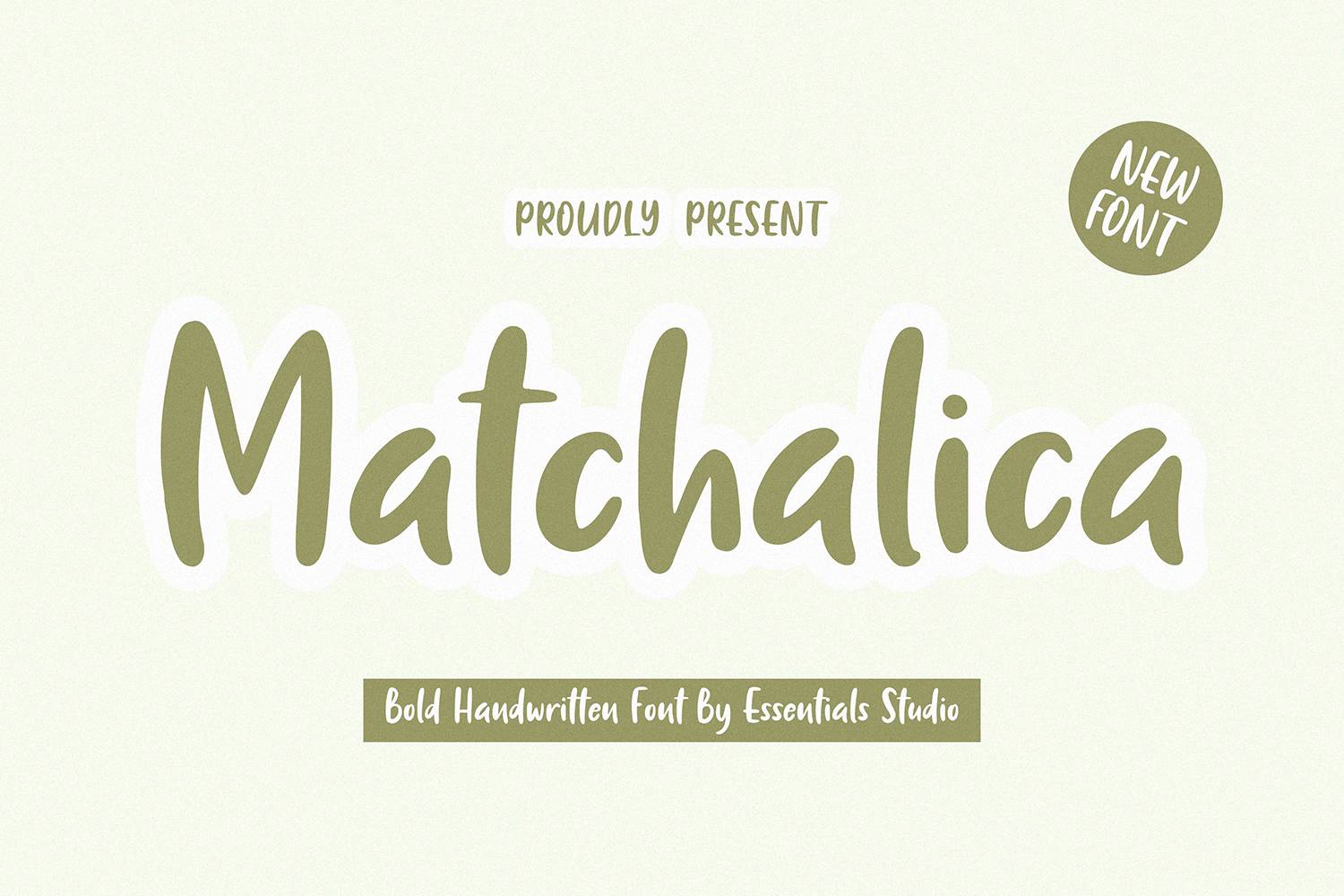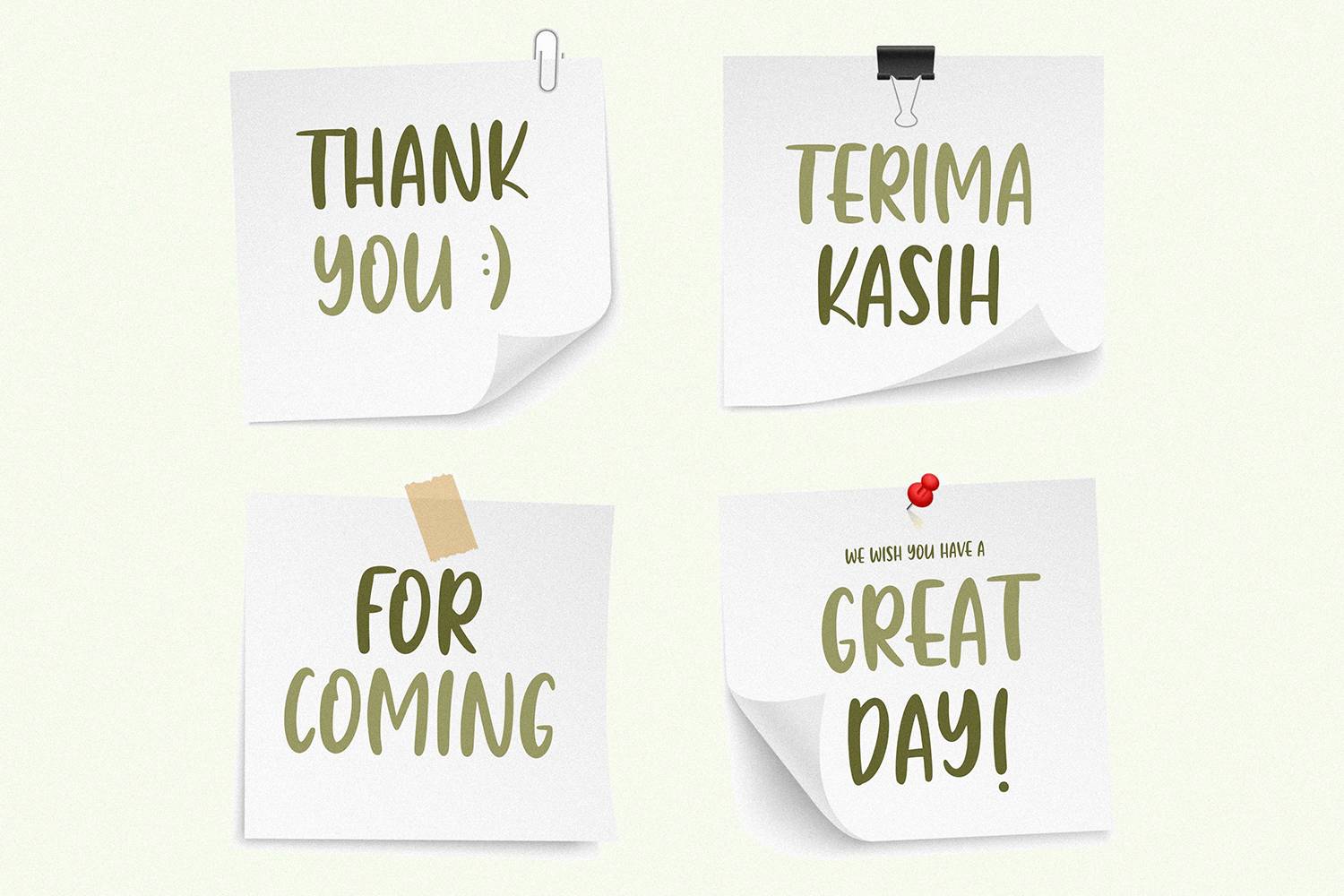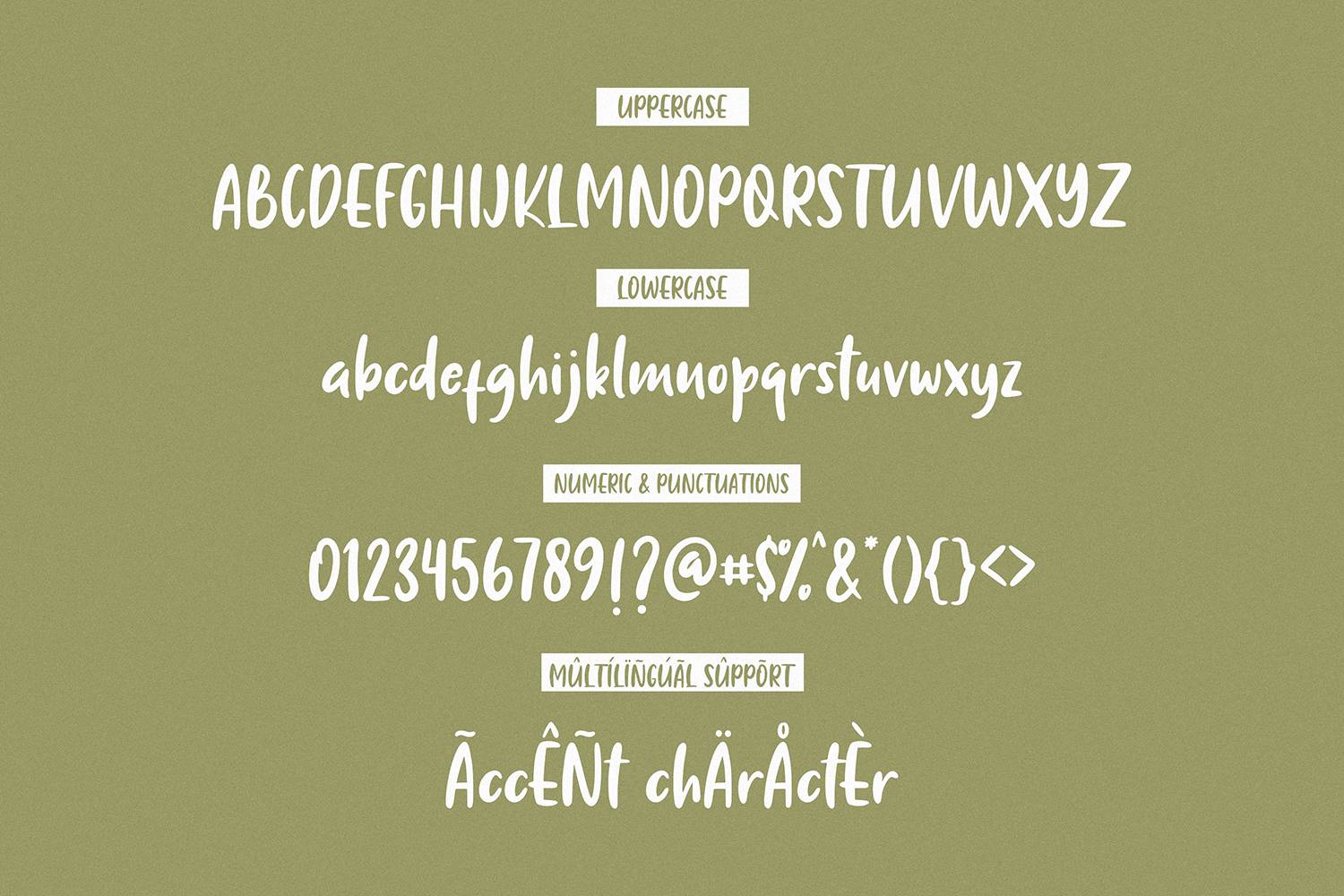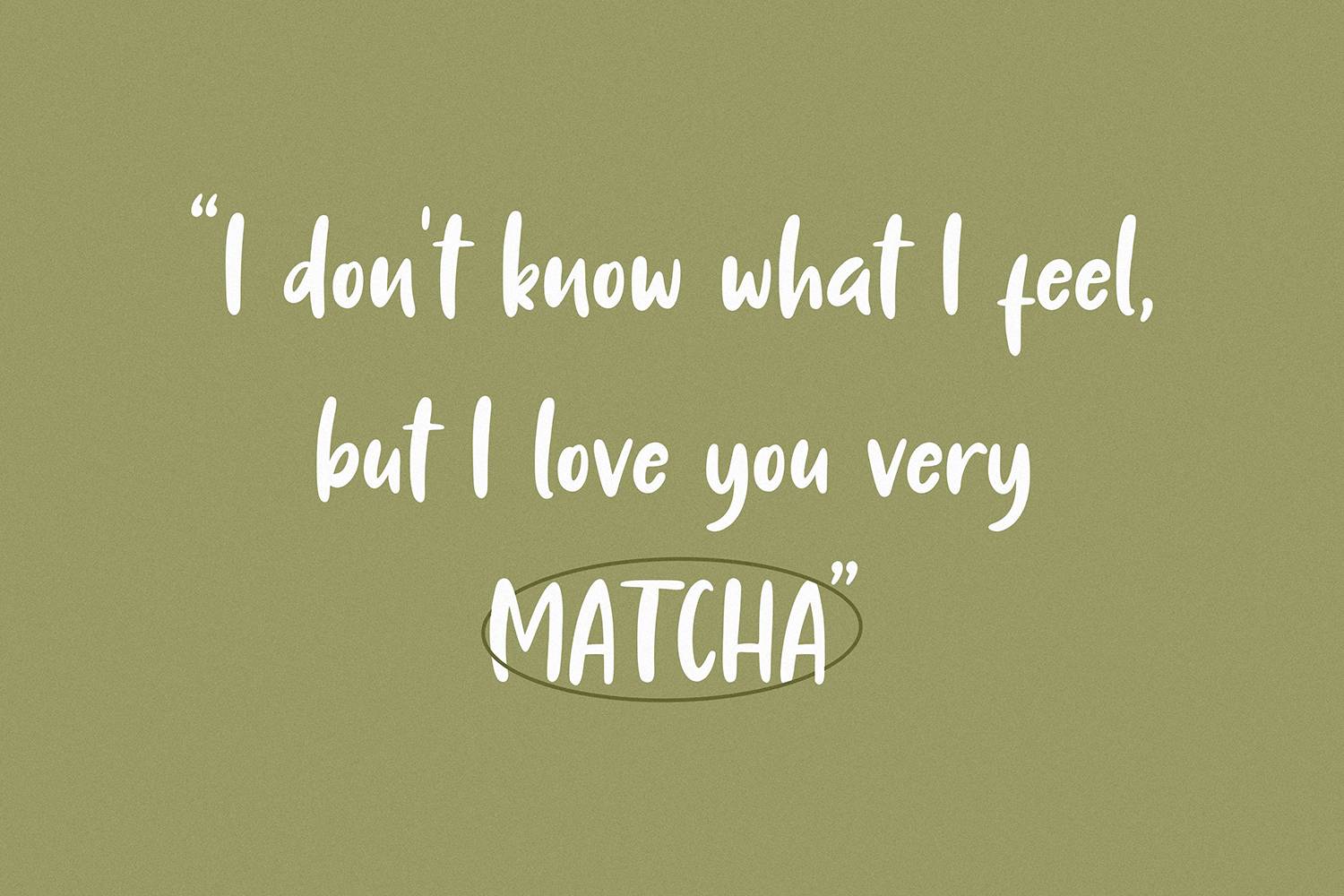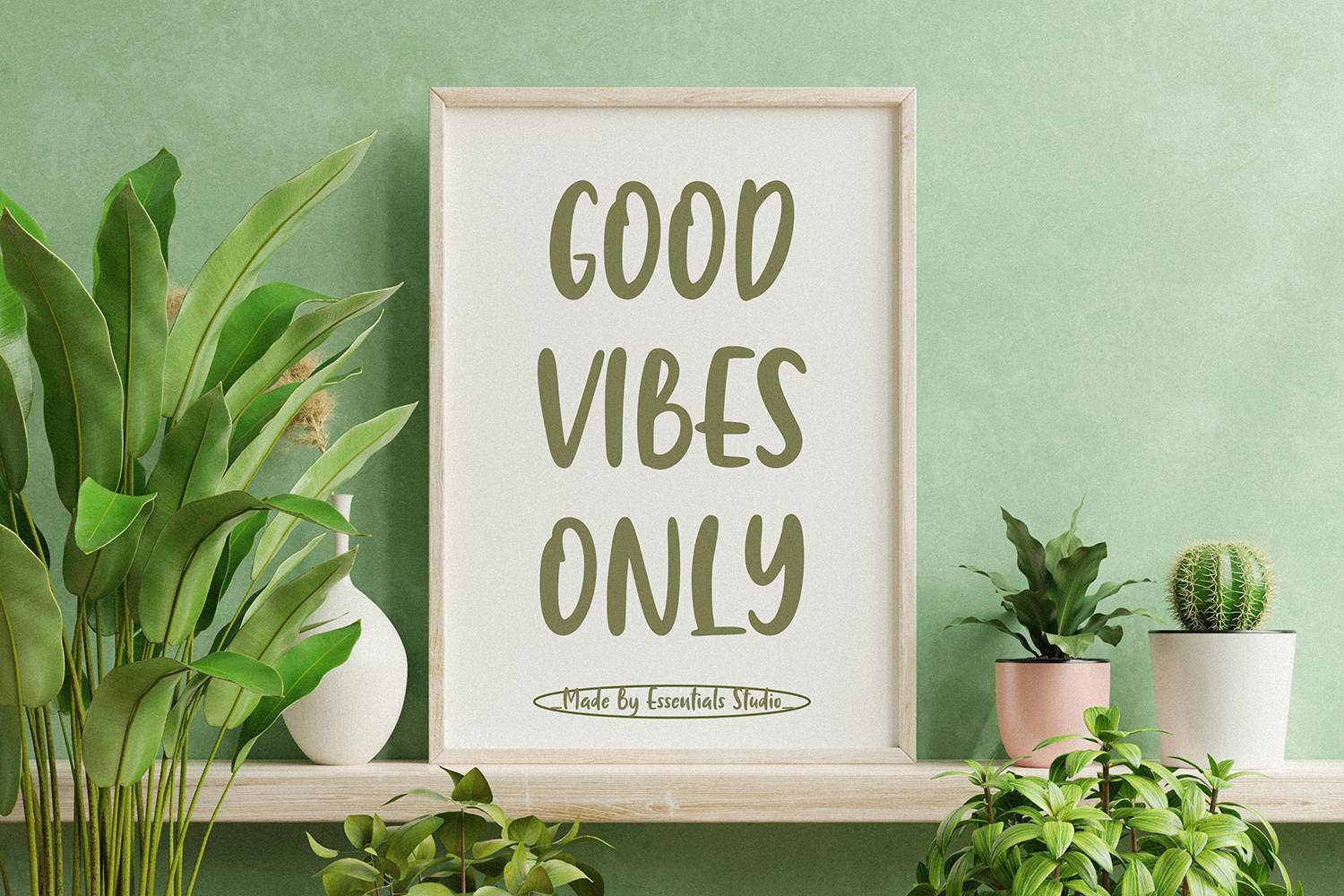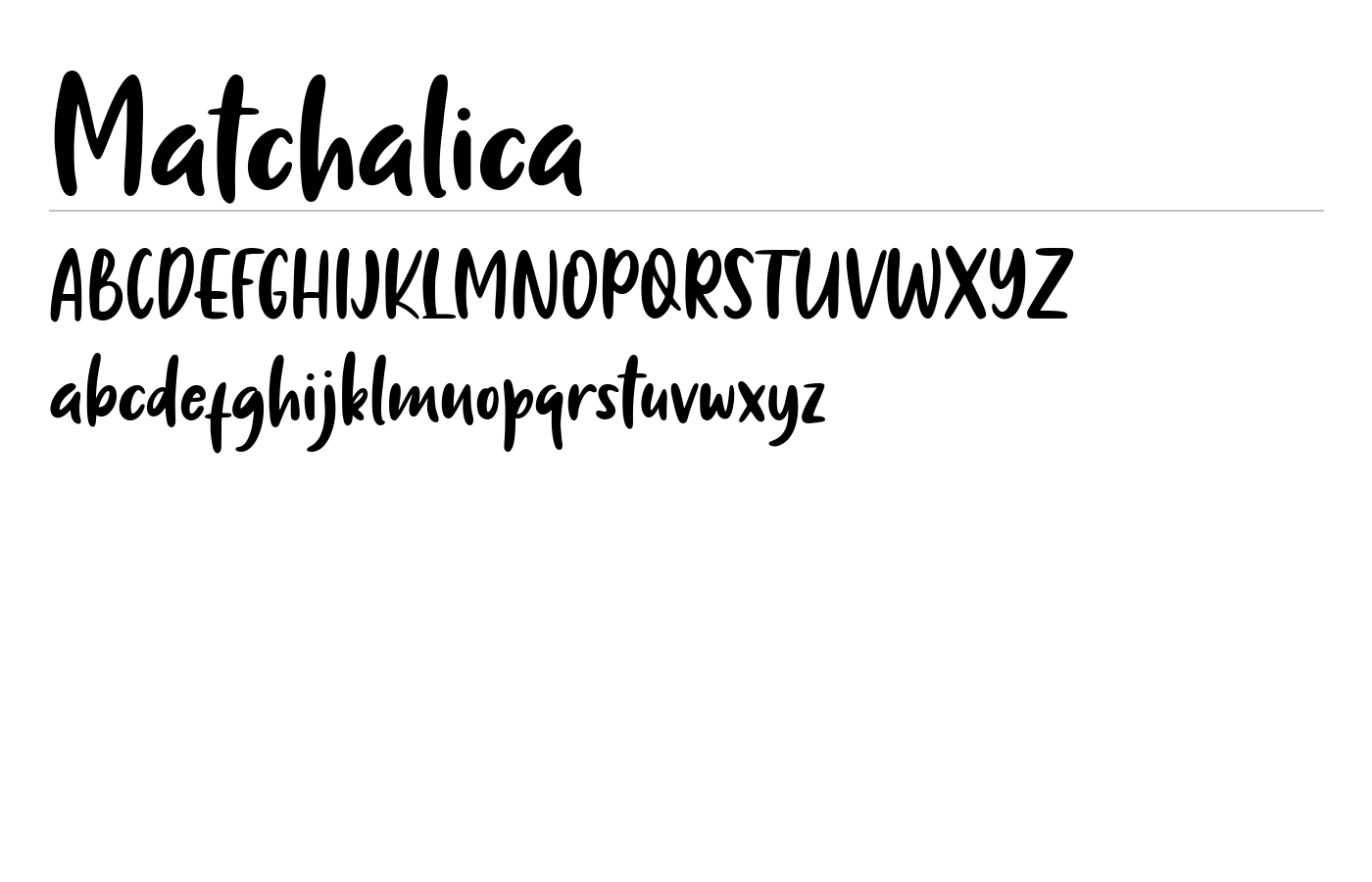
Matchalica is a playful and casual handwritten sans serif font with a friendly, approachable vibe. Its irregular strokes and slightly condensed letterforms give it an organic, natural feel perfect for creative projects, informal branding, and youthful designs. This font works well in logos, packaging, or headlines where a warm and personal touch is desired.
Matchalica Font
About Matchalica Font
| Font family | Matchalica Font |
| Release date | 2022-12-14 |
| Designer | Annas Rifky Anhar |